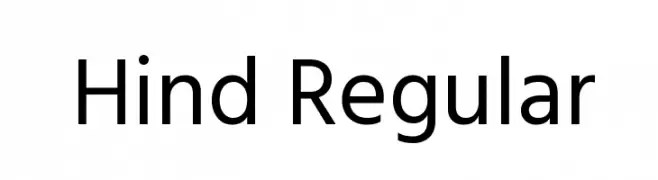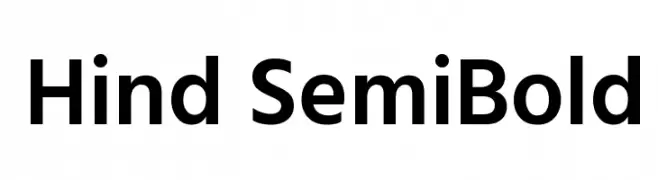
Hind Bold Font
A bold, modern sans-serif font with clean lines and excellent readability.
Hind SemiBold Font
A clean, modern sans-serif font with semi-bold weight and medium contrast.
Hind Medium Font
A clean, modern sans-serif font with medium weight and excellent legibility.
Hind Siliguri Bold Font
A bold, modern sans-serif font with excellent readability and geometric precision.
Hind Guntur Bold Font
A bold, modern sans-serif font with clean, geometric lines.
Hind Siliguri SemiBold Font
A modern, semi-bold sans-serif font with excellent readability and balanced proportions.
Hind Regular Font
A clean, modern sans-serif font with uniform stroke width and excellent readability.
Hind Light Font
A clean, modern sans-serif font with uniform stroke width and excellent readability.
Hind Vadodara Bold Font
A bold, modern sans-serif font with clean lines and strong visual impact.
Hind Madurai Bold Font
A bold, modern sans-serif font with clean lines and strong readability.
Hind Vadodara SemiBold Font
A clean, modern sans-serif font with a semi-bold weight and excellent readability.
Hind Guntur SemiBold Font
A modern, geometric sans-serif font with balanced proportions and uniform stroke width.
Hind Madurai SemiBold Font
A clean, modern sans-serif font with a semi-bold weight and geometric structure.